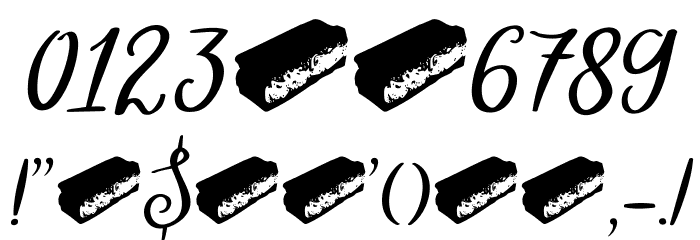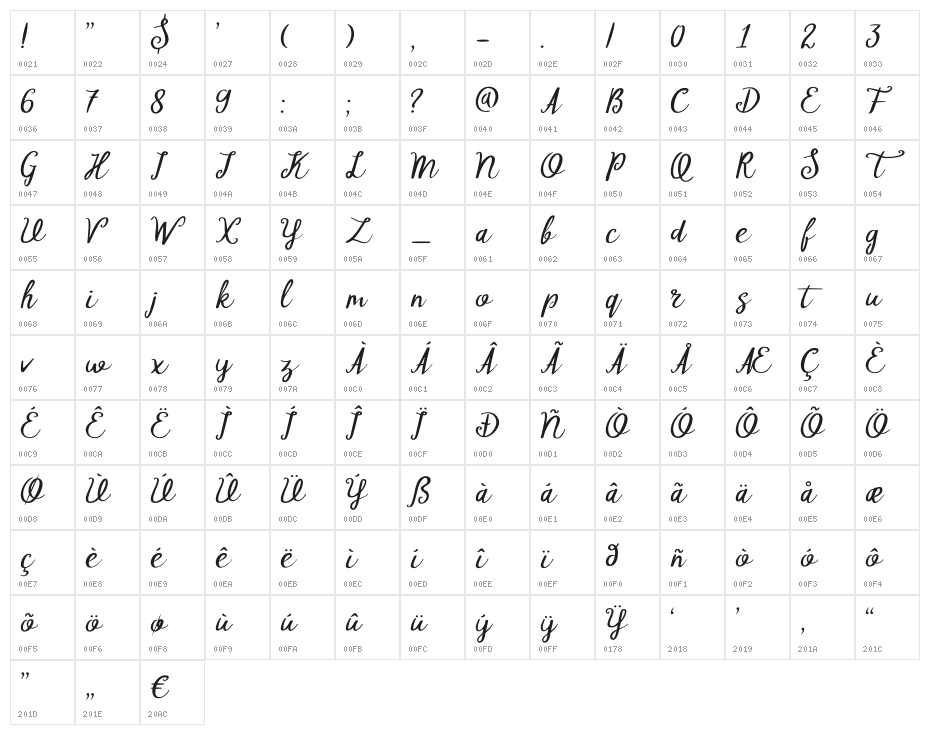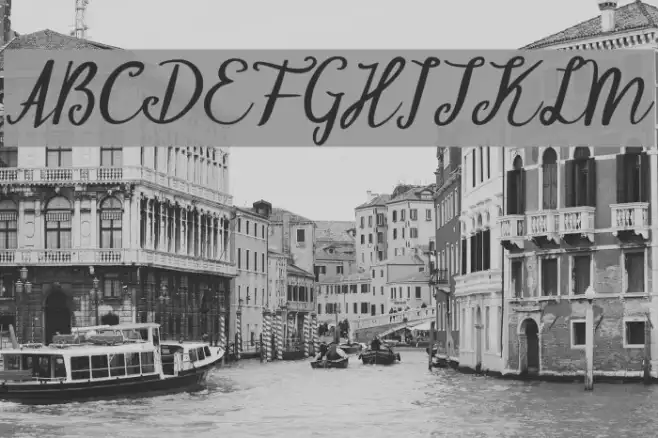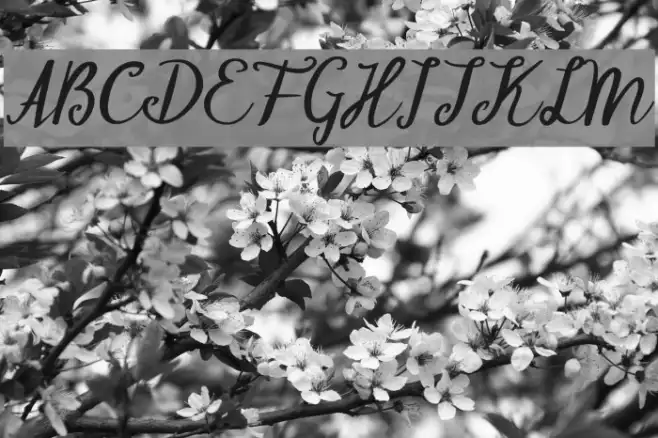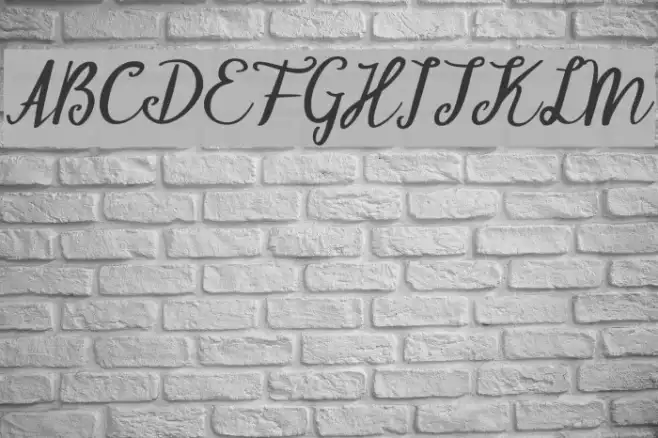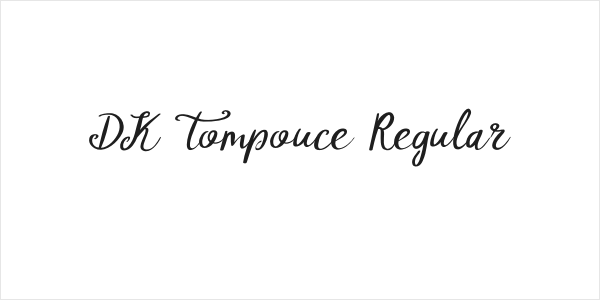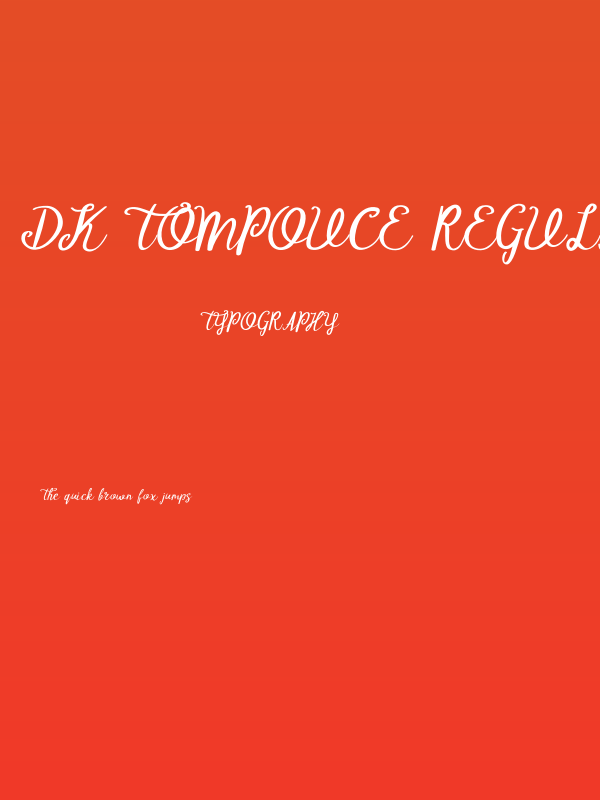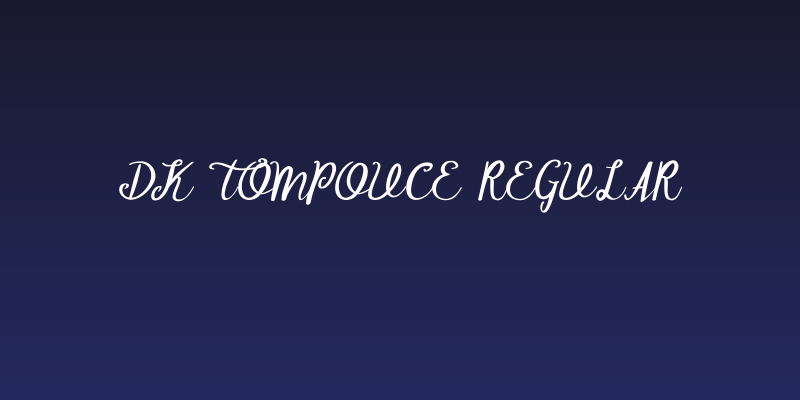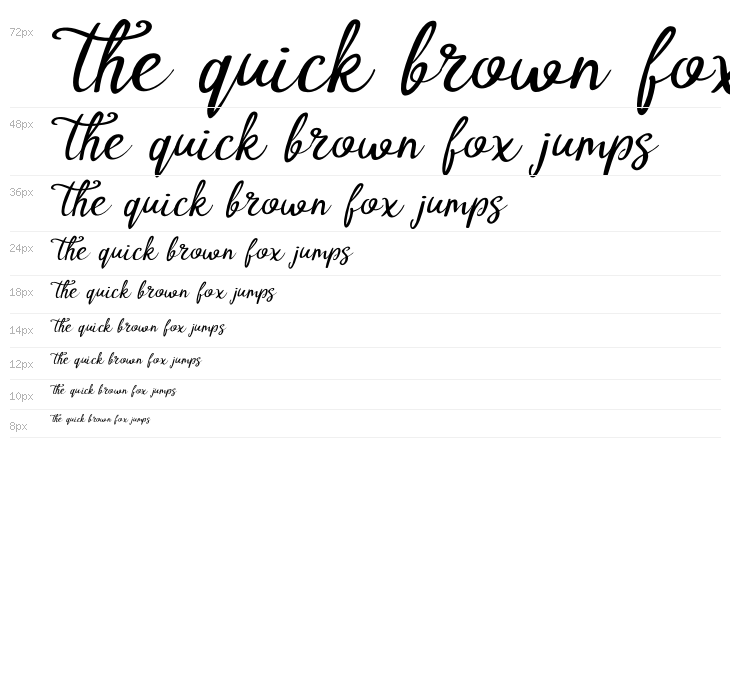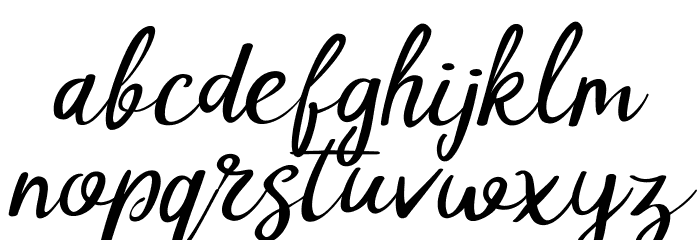
DK Tompouce Regular Font
DK Tompouce Regular Description
This font features an elegant and flowing script style, characterized by its smooth, cursive letterforms that exude a sense of sophistication and grace. The uppercase letters are distinctively ornate, with sweeping curves and flourishes that add a decorative touch. The lowercase letters maintain a consistent flow, enhancing readability while retaining a stylish appearance. The numerals and special characters are designed to complement the script, with a playful yet refined look. This font is ideal for projects that require a touch of elegance and creativity.
| Use Case | Headlines, Invitations, Branding |
| Proposed Projects | Ideal for wedding invitations, greeting cards, elegant branding, and decorative signage. |